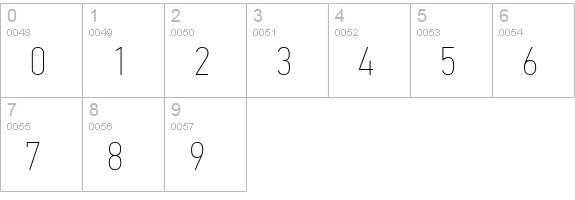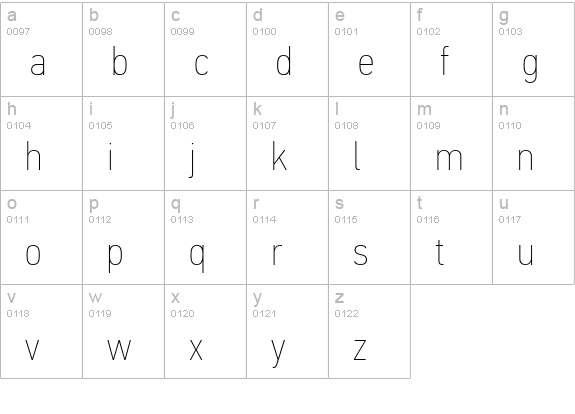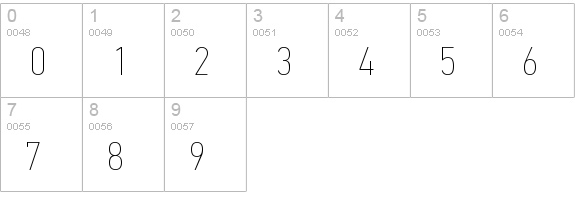
PFDinTextCondPro-XThin Font Details
PFDinTextCondPro-XThin font is a sleek and elegant typeface that exudes sophistication and modernity. Its thin strokes and condensed design make it perfect for adding a touch of refinement to any project. This font is ideal for creating stylish headings, logos, and branding materials. With its clean lines and contemporary feel, PFDinTextCondPro-XThin font is sure to make a statement. The best part? This font is available for free download at FontsMarket.com. Whether you're a designer looking to elevate your next project or a business seeking a fresh new look, PFDinTextCondPro-XThin font is a versatile choice that will not disappoint. Download it today and enhance your designs with this premium typeface.